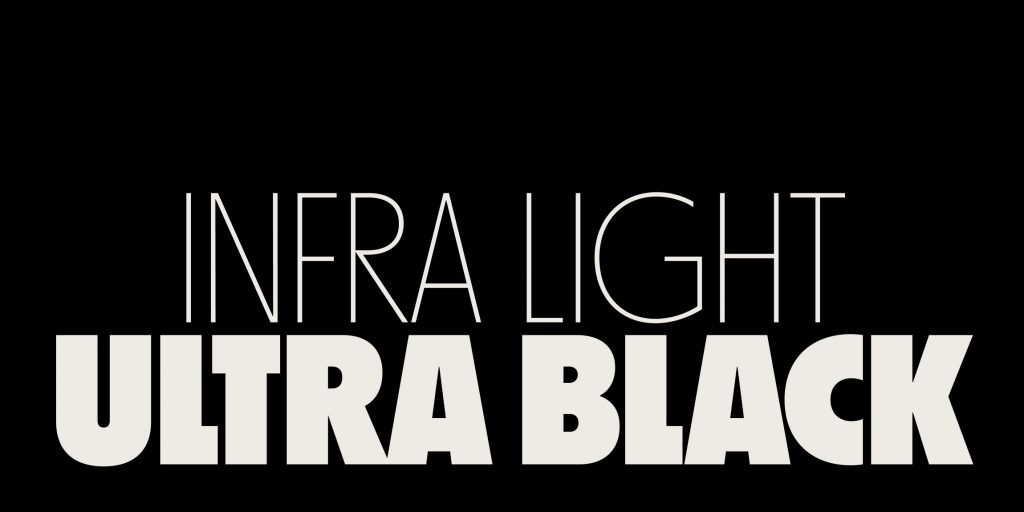
Name: MD Nichrome
Designer: Rutherford Craze
Foundry: Mass-Driver
Back story: The design for MD Nichrome began in late 2016, when Craze started collecting second-hand sci-fi paperbacks from the 1970s and early 80s. He soon became inspired by the bold display typefaces accompanying richly-detailed and brightly-colored illustrations by artists such as Chris Foss and Roger Dean. Many of the typefaces from this time were originally drawn for dry transfer or photo lettering, and not digitized as carefully as they deserved to be. Craze set out to create something entirely new by blending elements of these older fonts.
For Nichrome, the designer hoped to capture both the rigid, constructed geometry of faces such as Blippo and Wexford as well as the more balanced appearance of 1920s geometrics like Kabel or Futura, feeling that the combination of these two approaches defined the sci-fi genre. “Simply constructing the letterforms from circles and rectangles doesn’t work but the refined curves of the ’20s designs go too far in the other direction,” says Craze. “Finding a balance was difficult, and combined with the strange proportions and tight spacing I was after, it took a few attempts.”
Why’s it called Nichrome? At first, Craze wanted to name the typeface Inconel, after a metal alloy used in rocket engines, but that name turned out to be an existing trademark. He considered other alloys (many of which have really great names, incidentally, such as NARloy-Z). “Nichrome jumped out at me very quickly as having the right kind of ring to it — it makes me think of Chris Foss spaceships or Roger Dean landscapes, and perhaps most importantly, it looks good set in the typeface. While I did go back later and consider a few other options, I simply couldn’t think of anything I liked more than Nichrome,” says Craze.
What are its distinguishing characteristics? Nichrome’s proportions are unconventional, particularly the uppercase and lighter weights, thanks to a great deal of variance in the widths of characters: compare the super narrow H with the wide, circular O. The x-height is huge, and the characters feature very short ascenders and descenders plus super tight spacing, so it sets densely yet legibly with a distinct 70’s vibe.
What should I use it for? Stylistically, Nichrome is quite versatile thanks to its wide range of weights and six sets of stylistic alternates. It’s best for display uses where a more casual tone is desired, and where there’s room to typeset it large. Craze says, “I’d love to see Nichrome used more in print, especially book covers since that’s where the design started. There’s a variable version which I’ve had a lot of fun animating, so there’s potential for some really cool uses on screen as well.”
What other typefaces do you like to pair it with? The classic option would be something a bit more staid, maybe Forma DJR or Halyard. On Nichrome’s own microsite it’s paired with MD IO, and in the past Craze has combined it with everything from Oaks to Hobeaux.